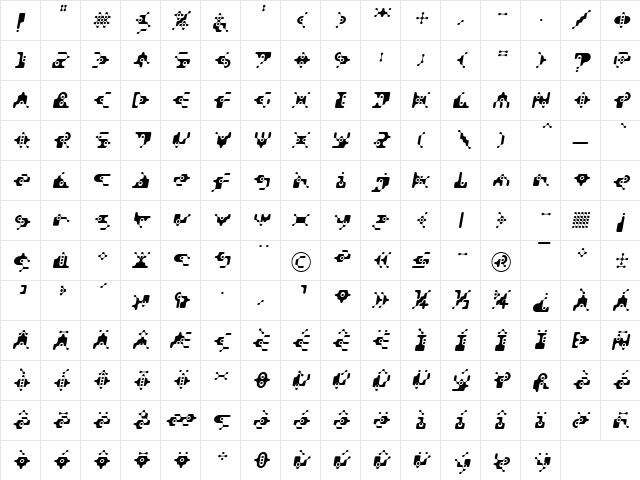
DigitalWaste Oblique
Design Context for DigitalWaste Typeface
DigitalWaste channels digital-age aesthetics through its sharp, structured letterforms — ideal for brands that want to signal innovation. The dynamic lean of this cut emphasises speed and emphasis in any layout.